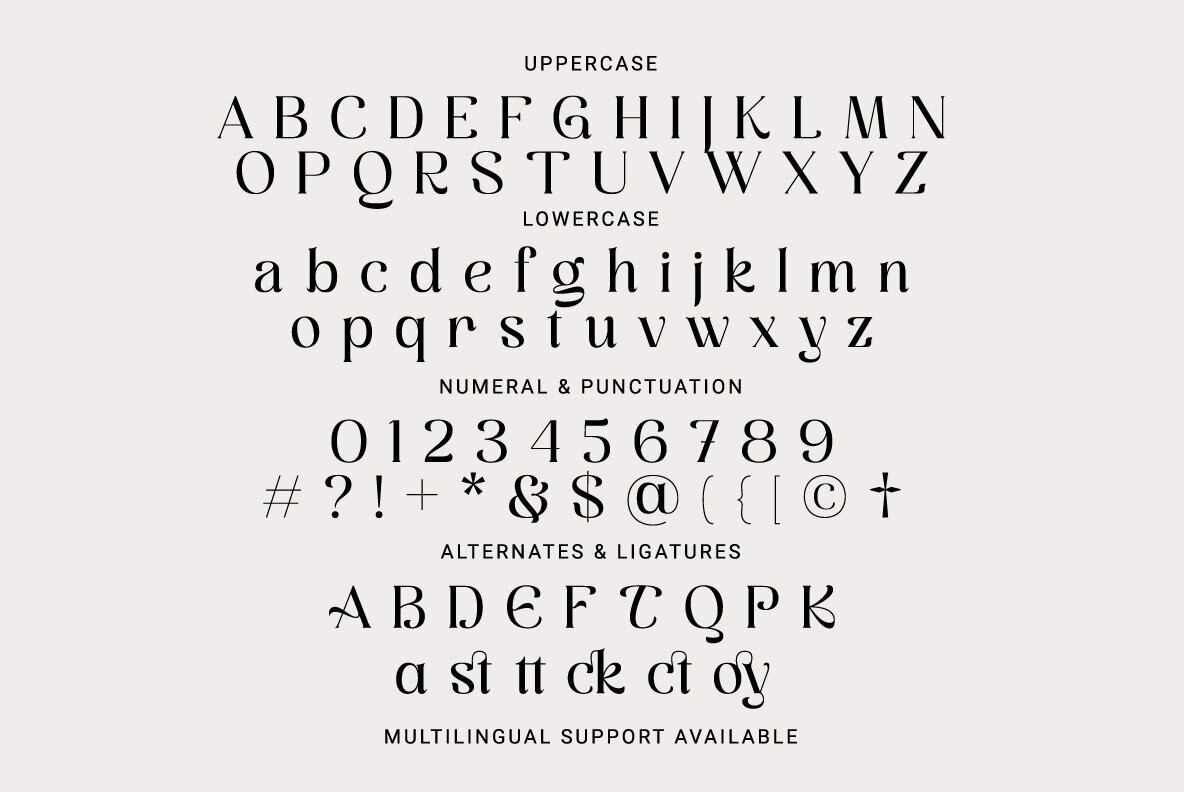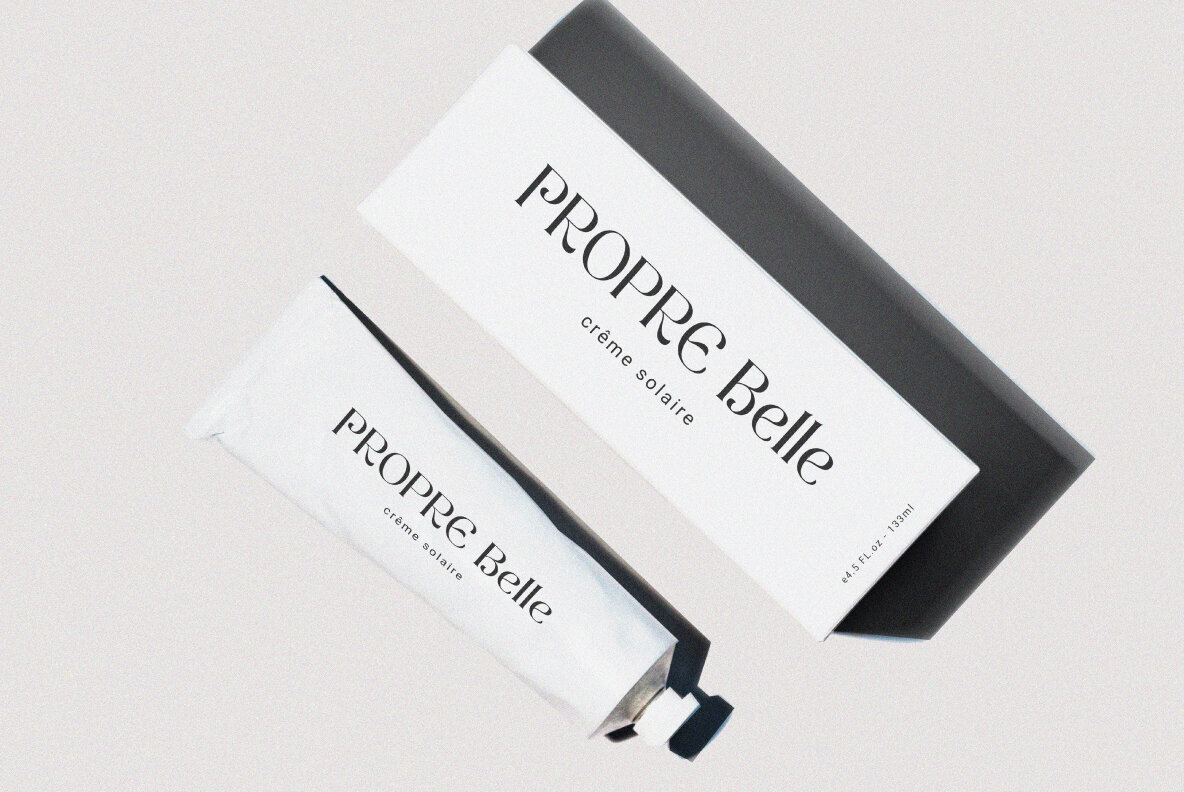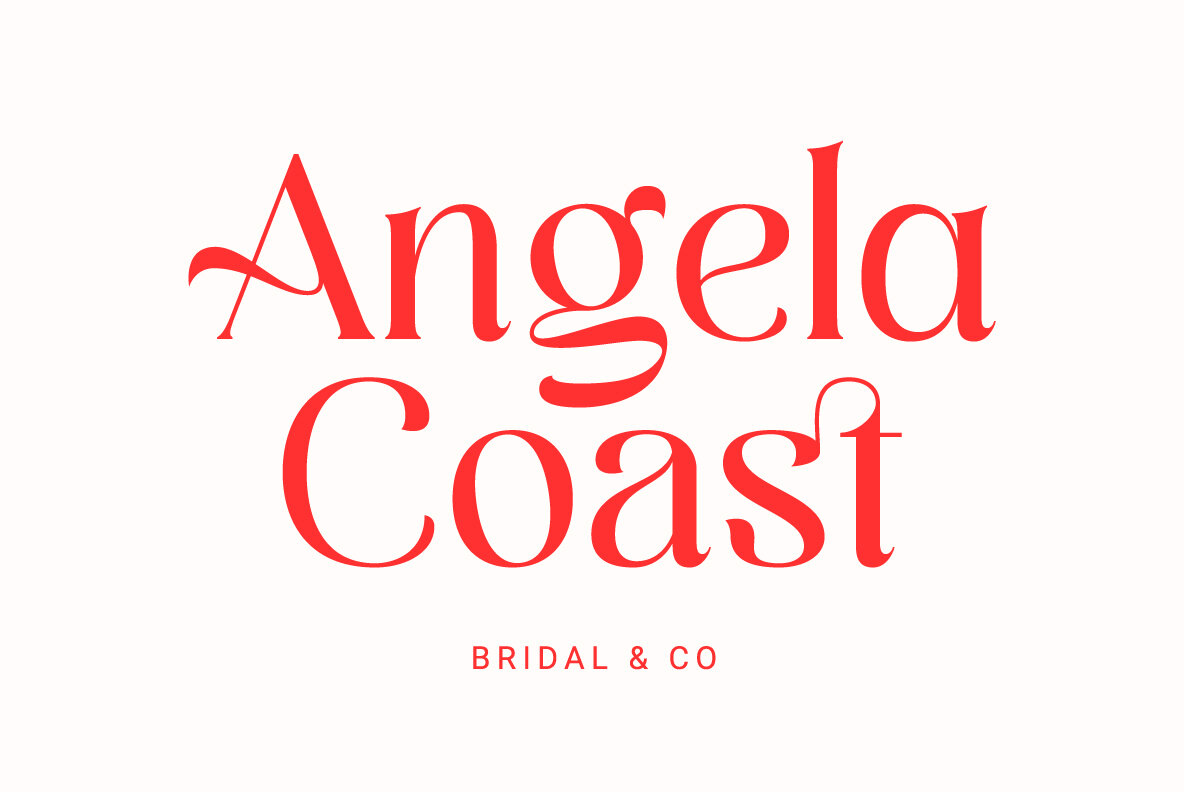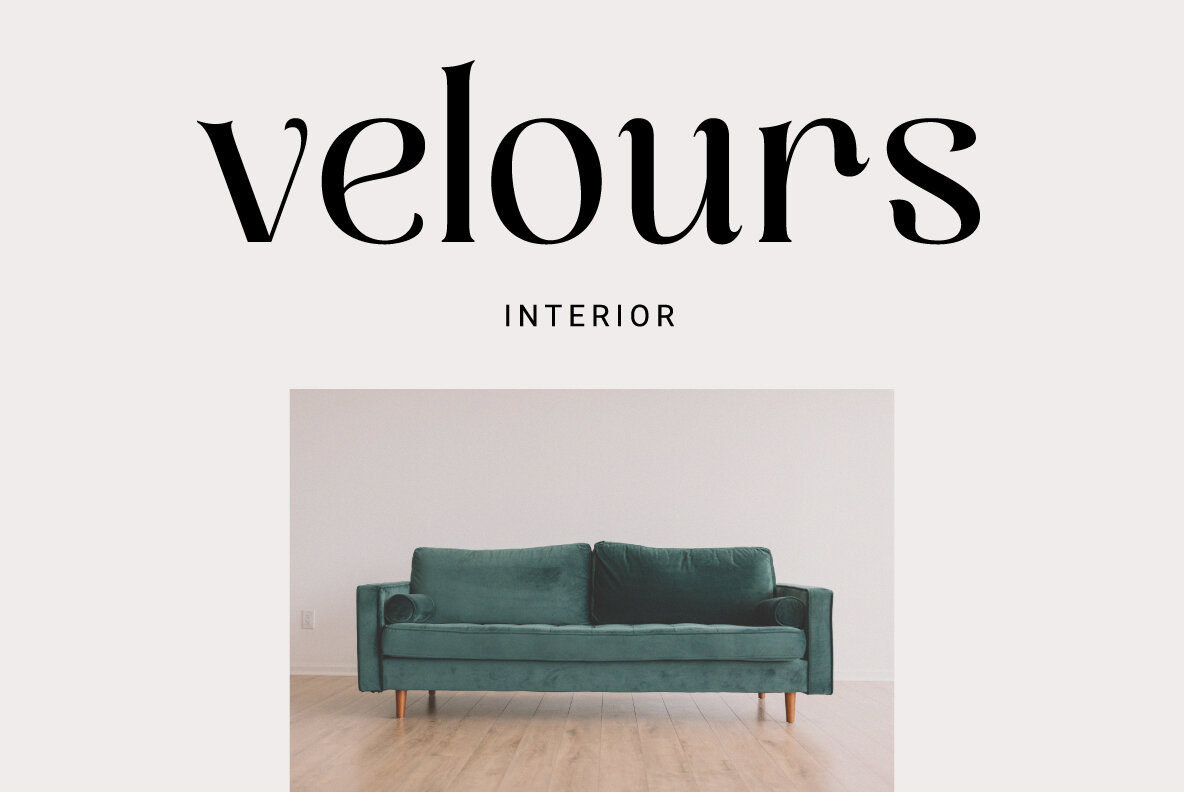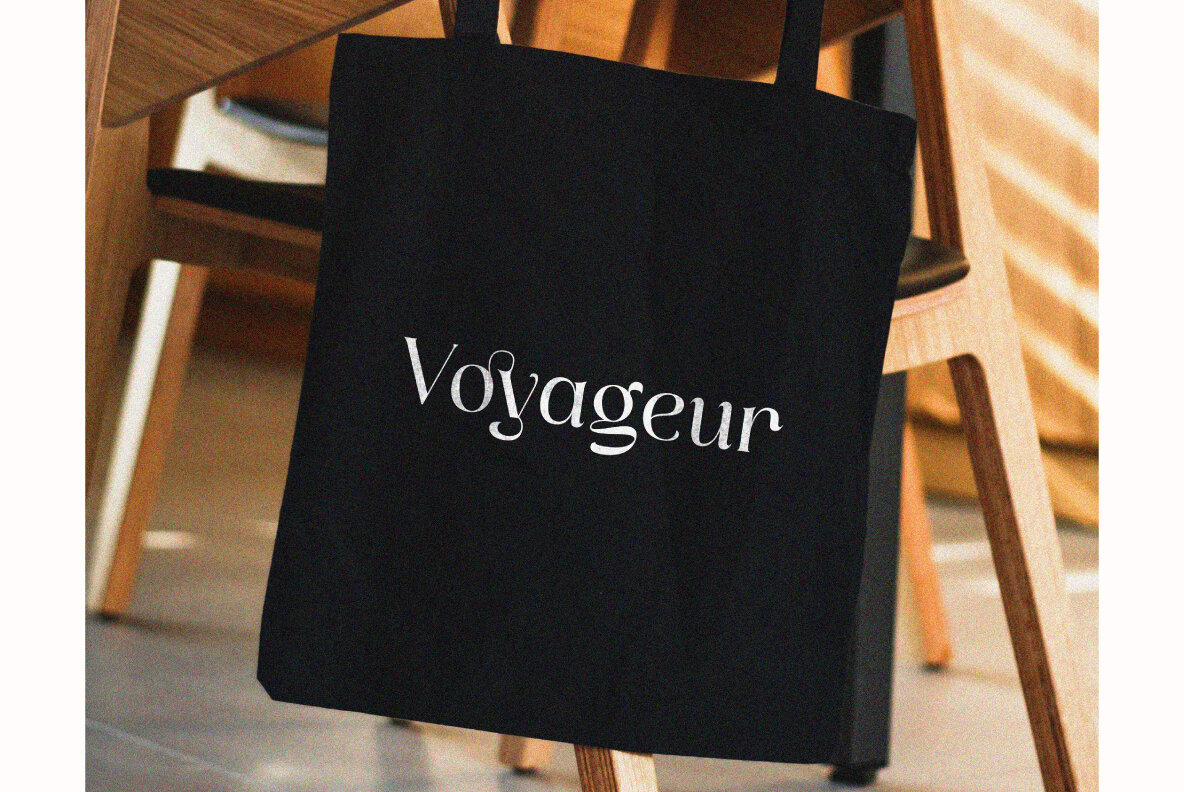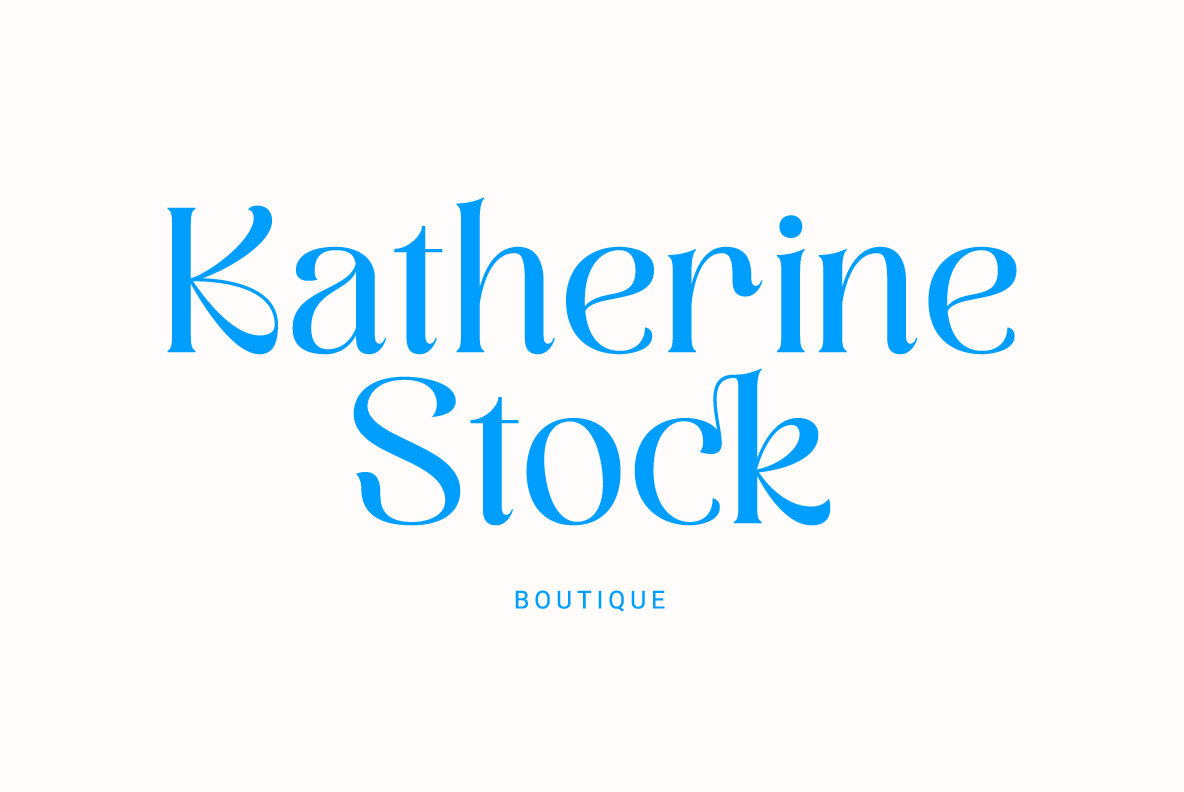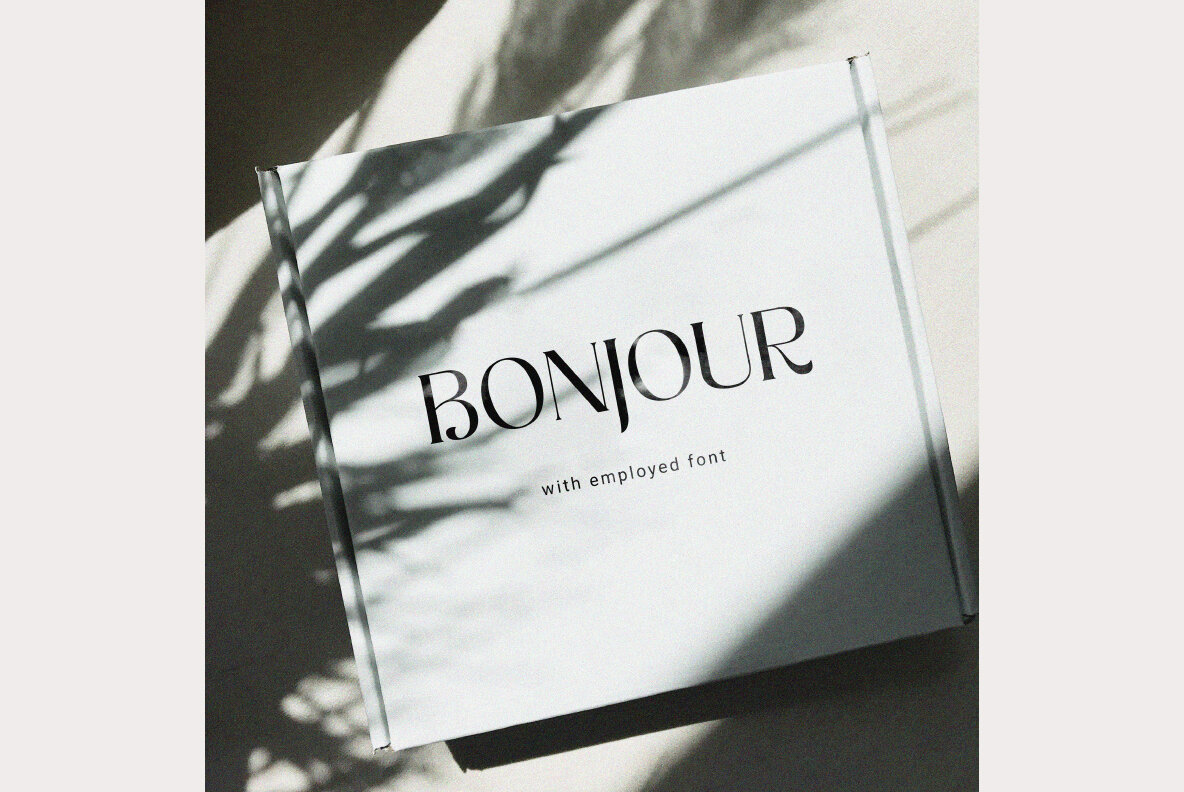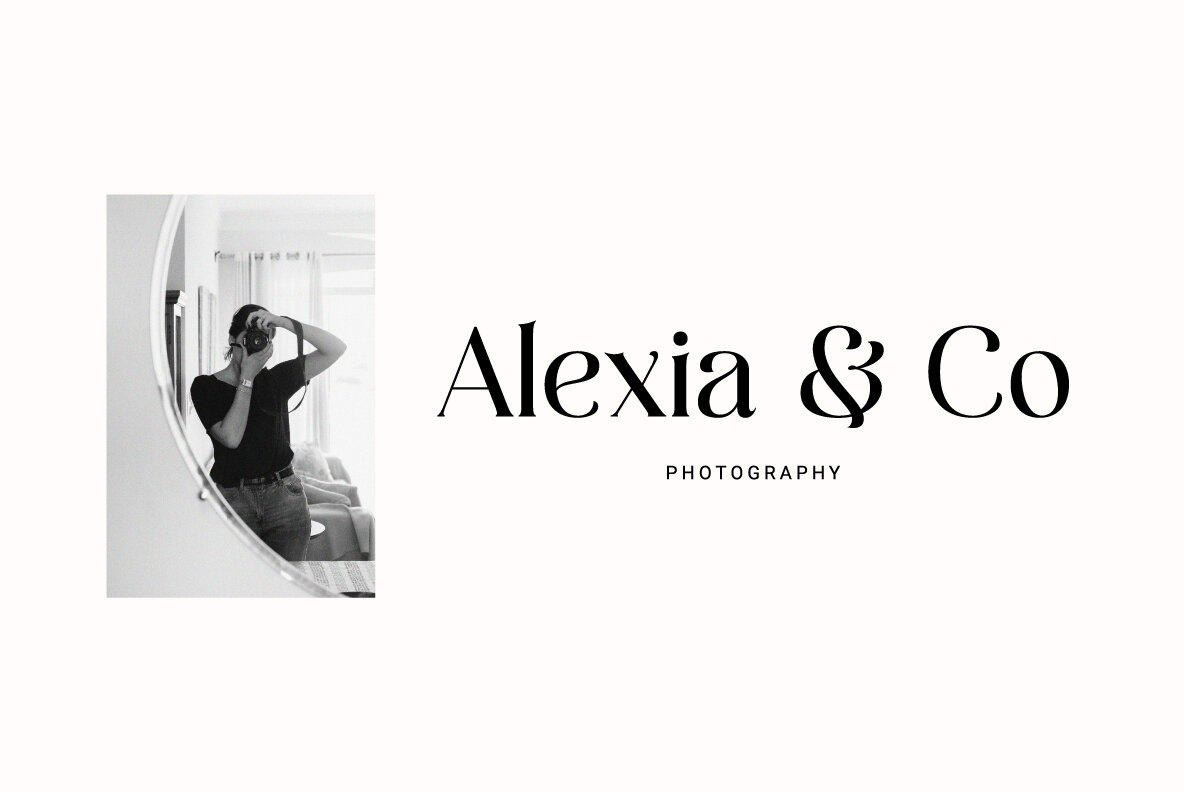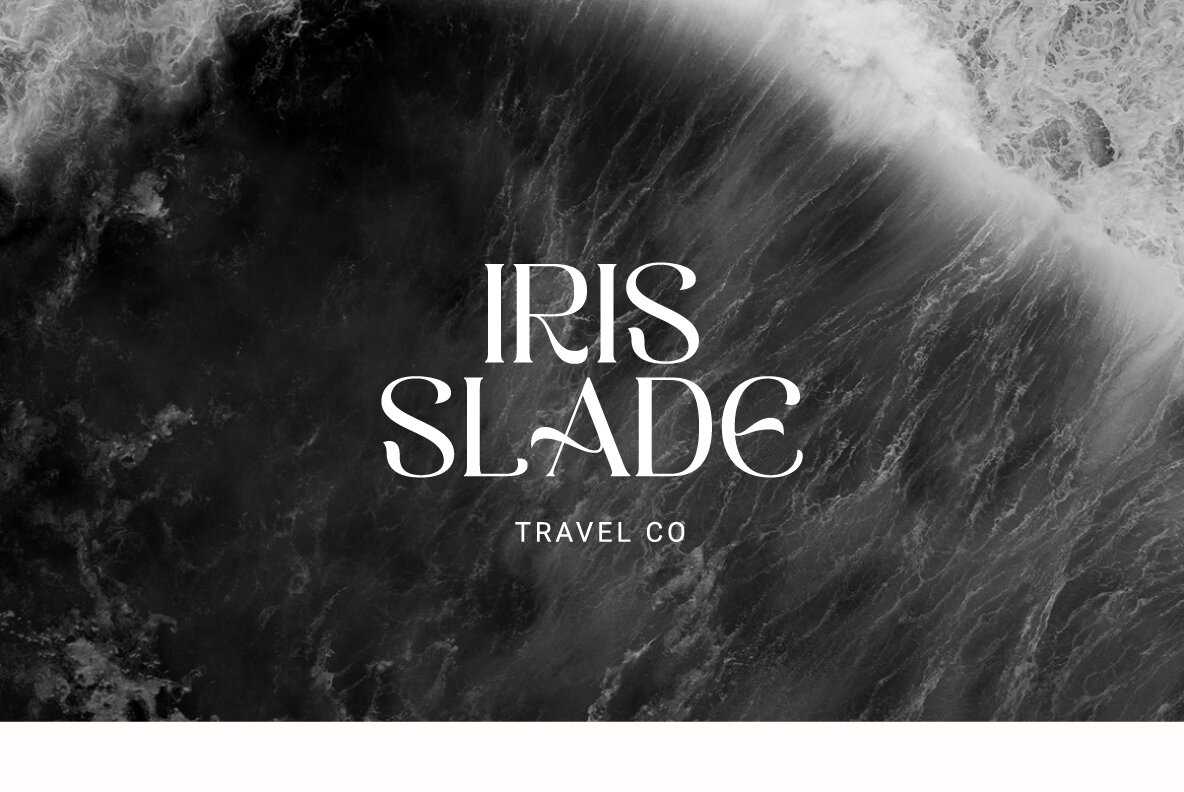
Employed Font
Employed Regular
Discover "Employed," a serif display font that harmoniously blends modern and classic styles. Perfect for enhancing your branding, logos, or social media posts, this typeface ensures your projects appear clean and eye-catching.Employed: Modern Serif Display Font